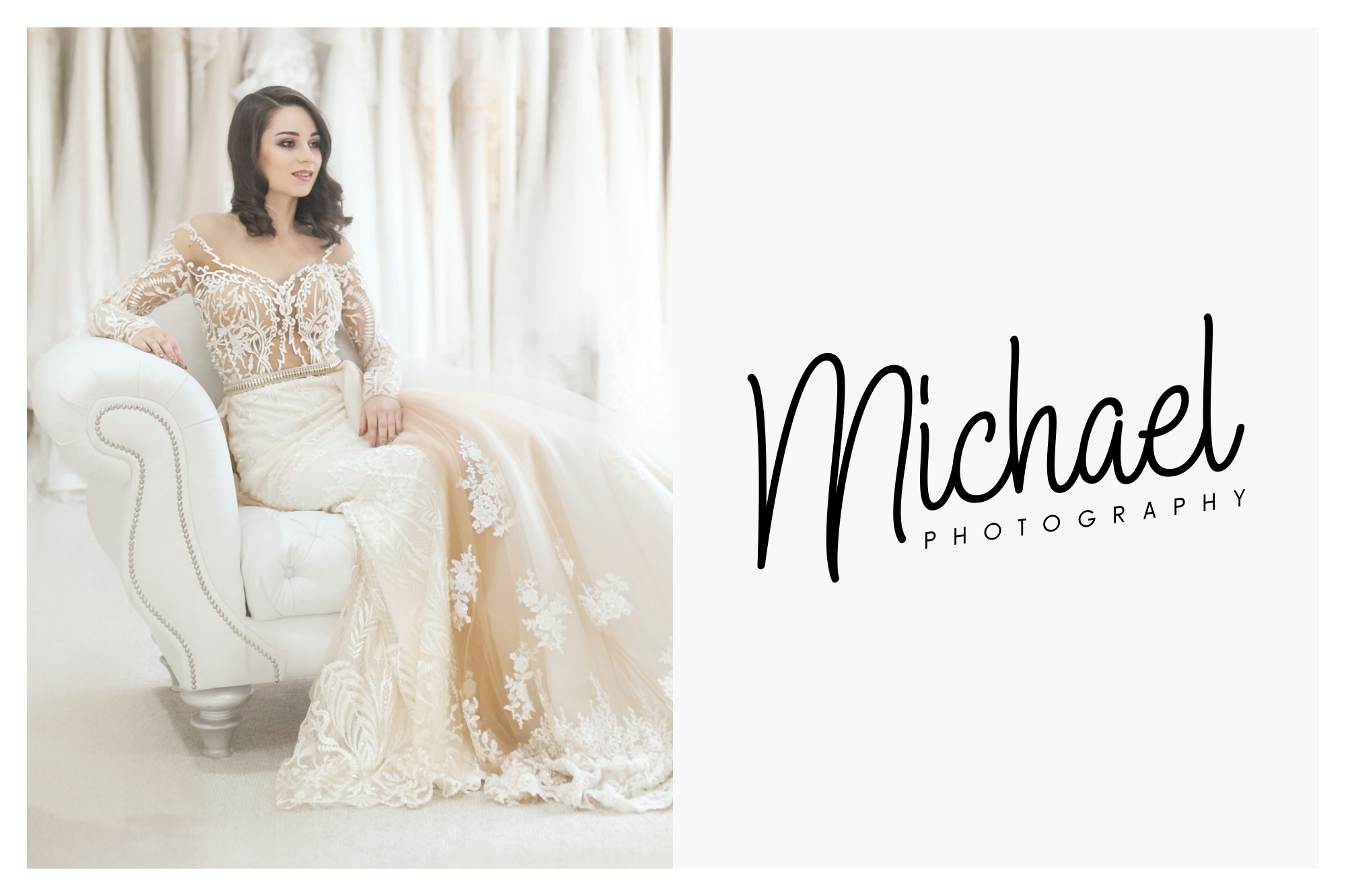
About Krofin Font
Krofin is an elegant script font with a contemporary atmosphere and impeccable form, inspired by timeless classic calligraphy. Not too thin and not too thick, balanced and varied, this font was designed to enhance the beauty of your projects.